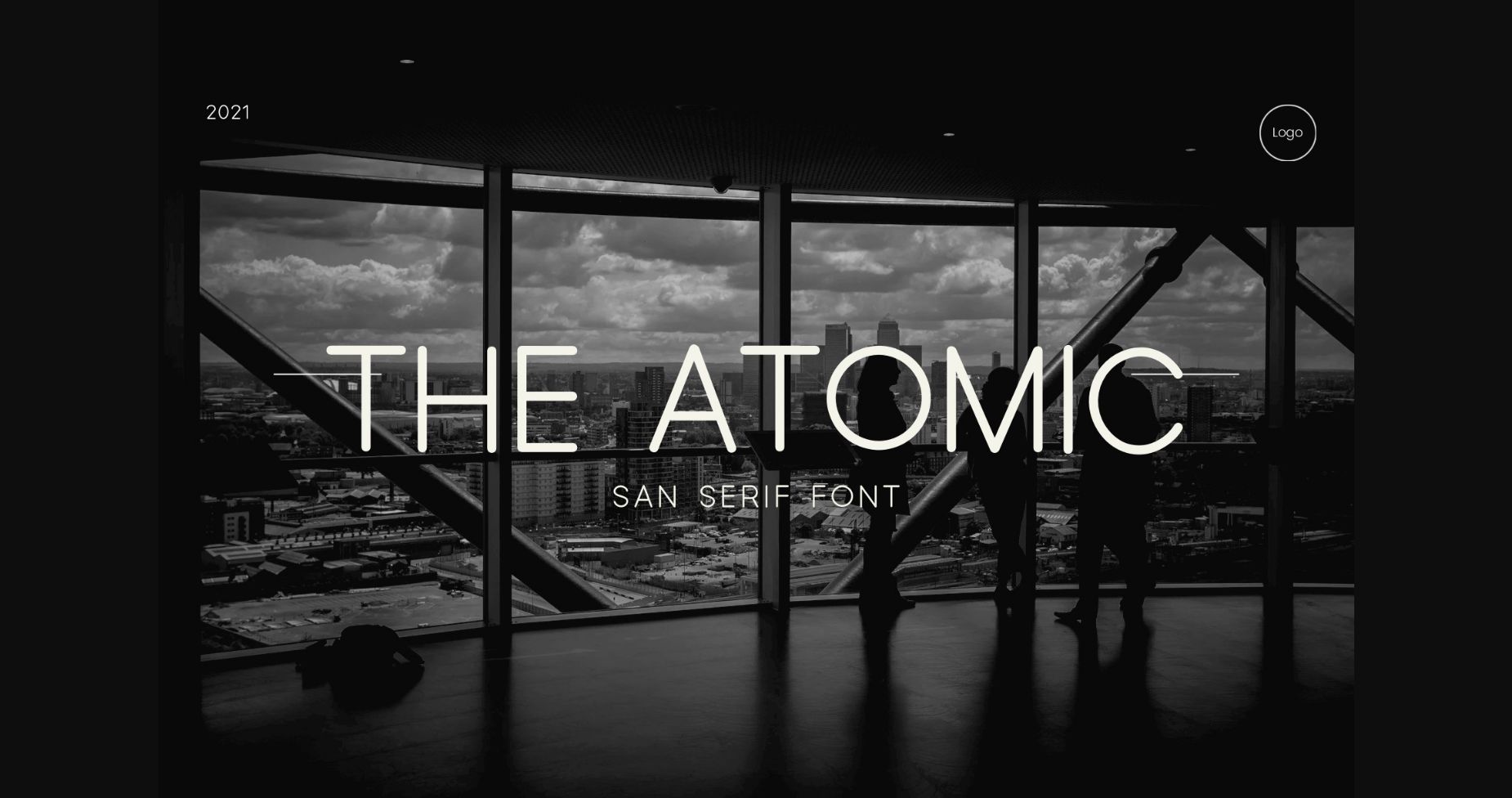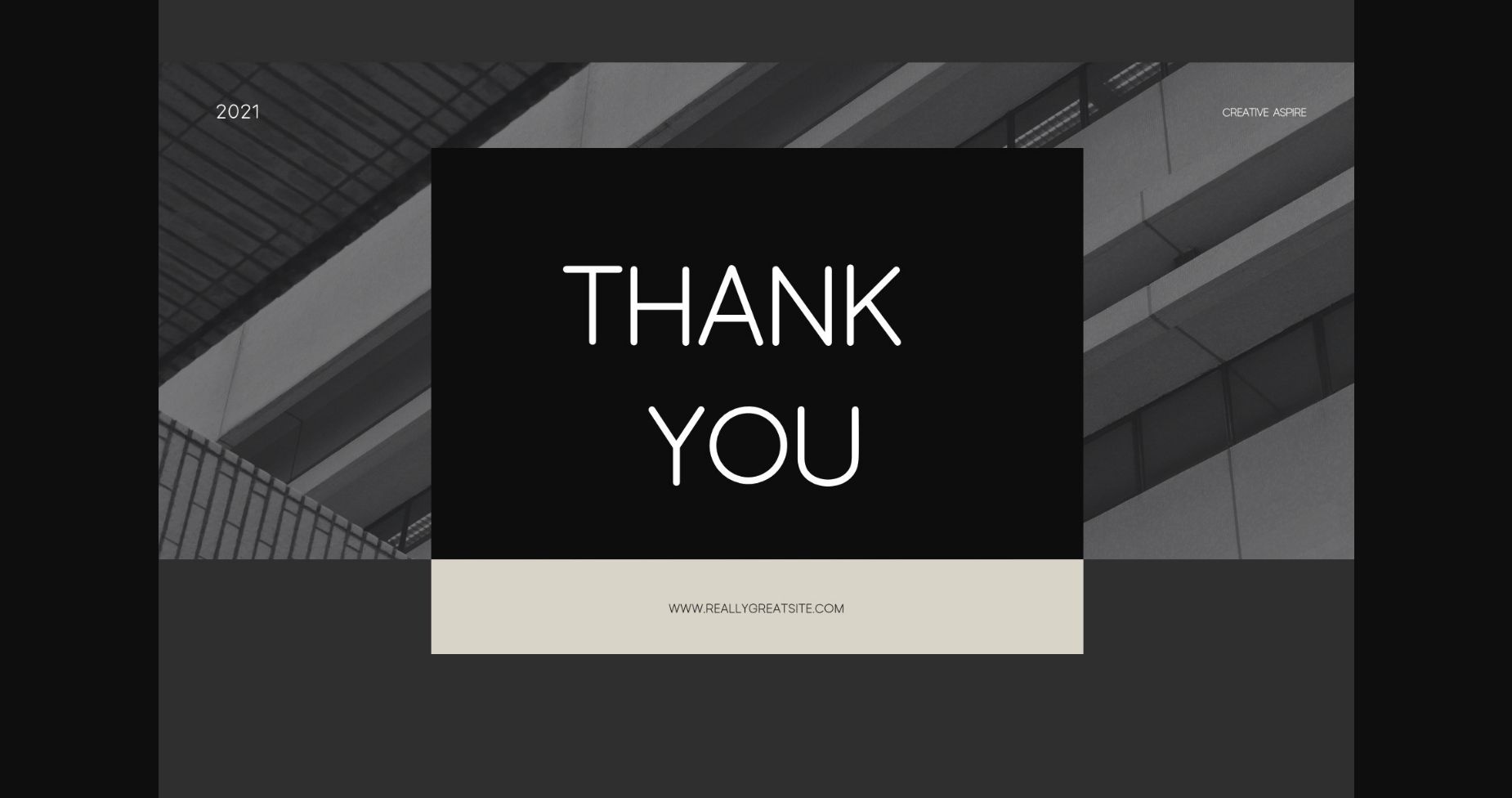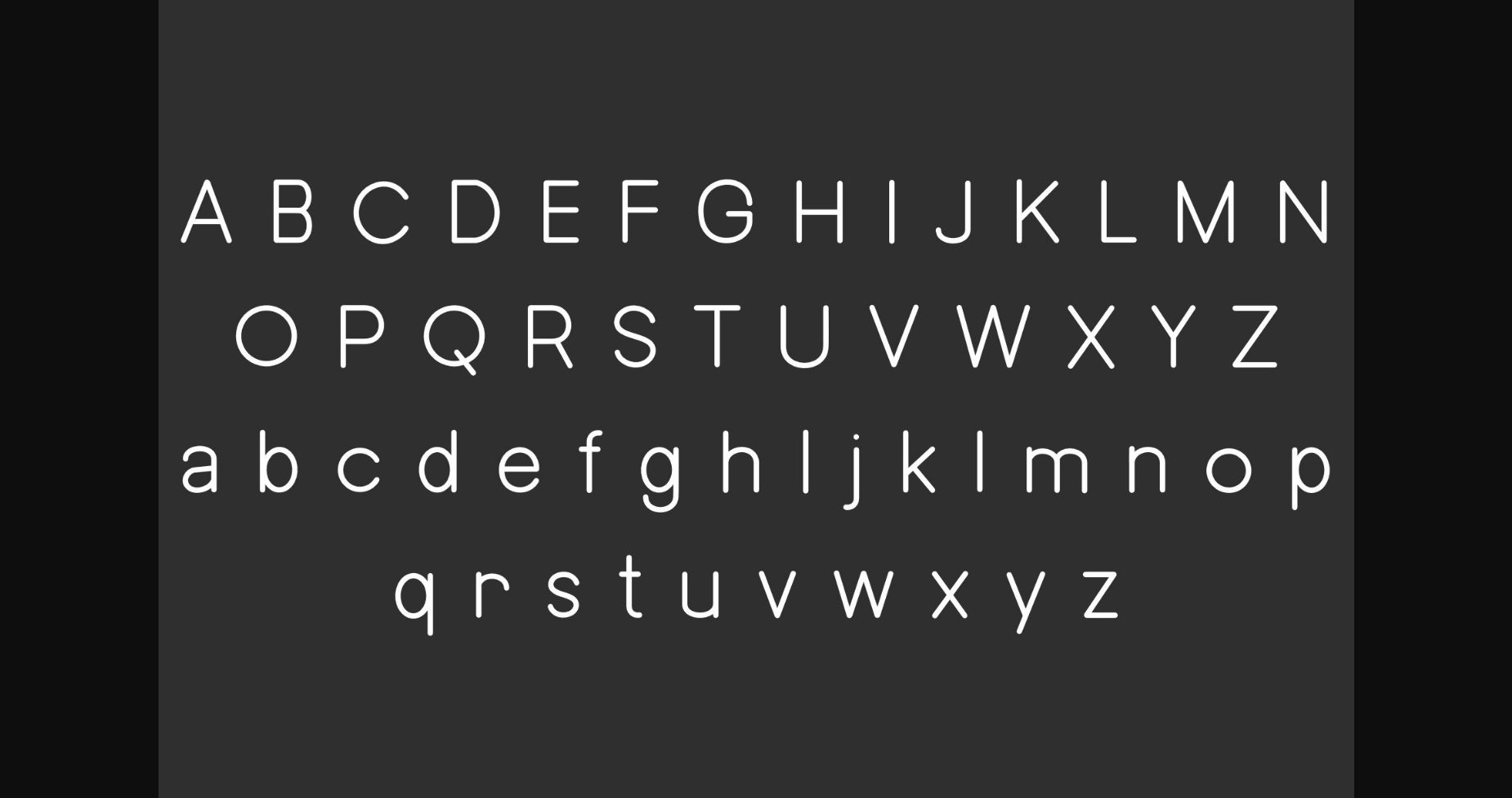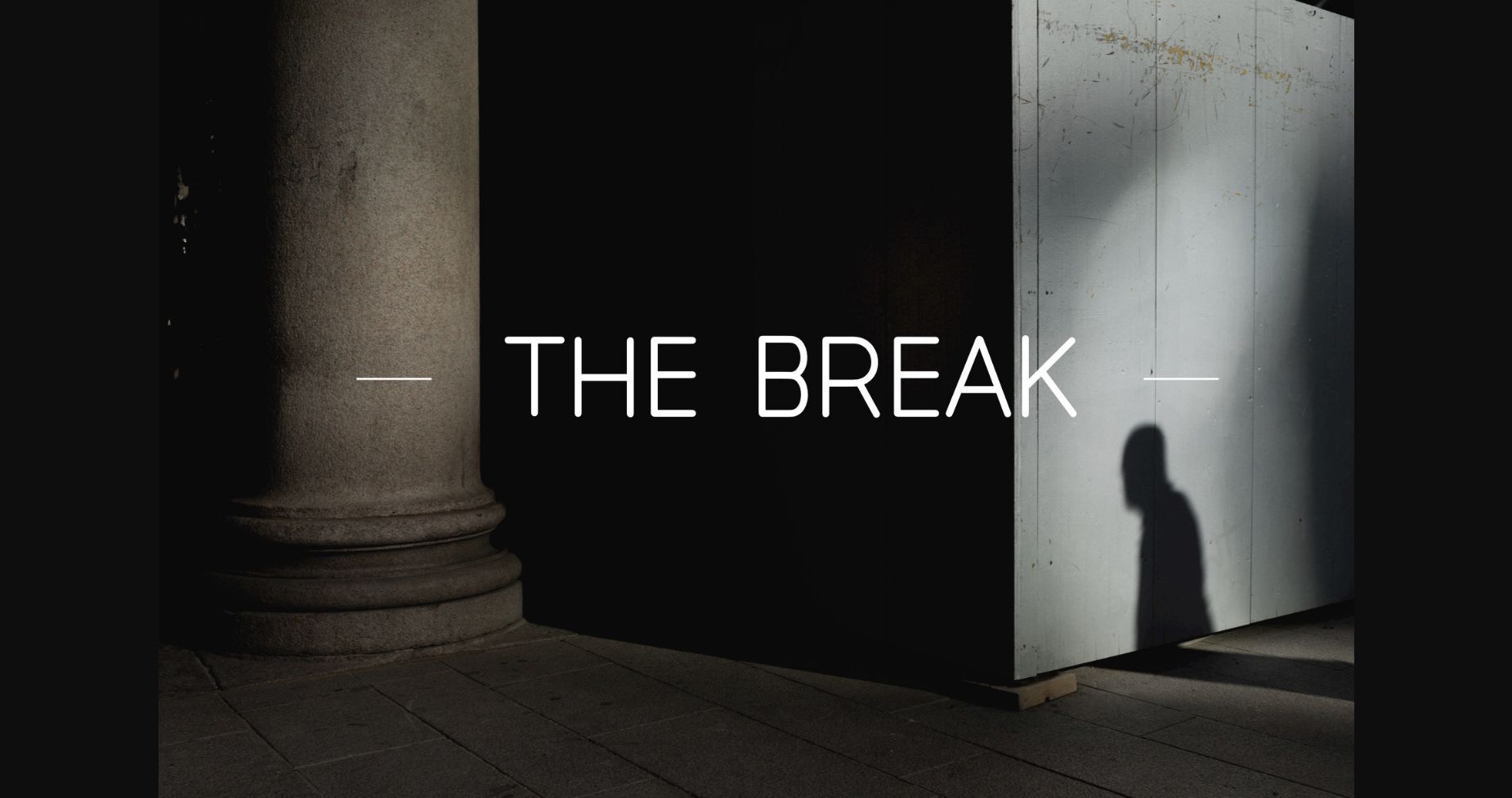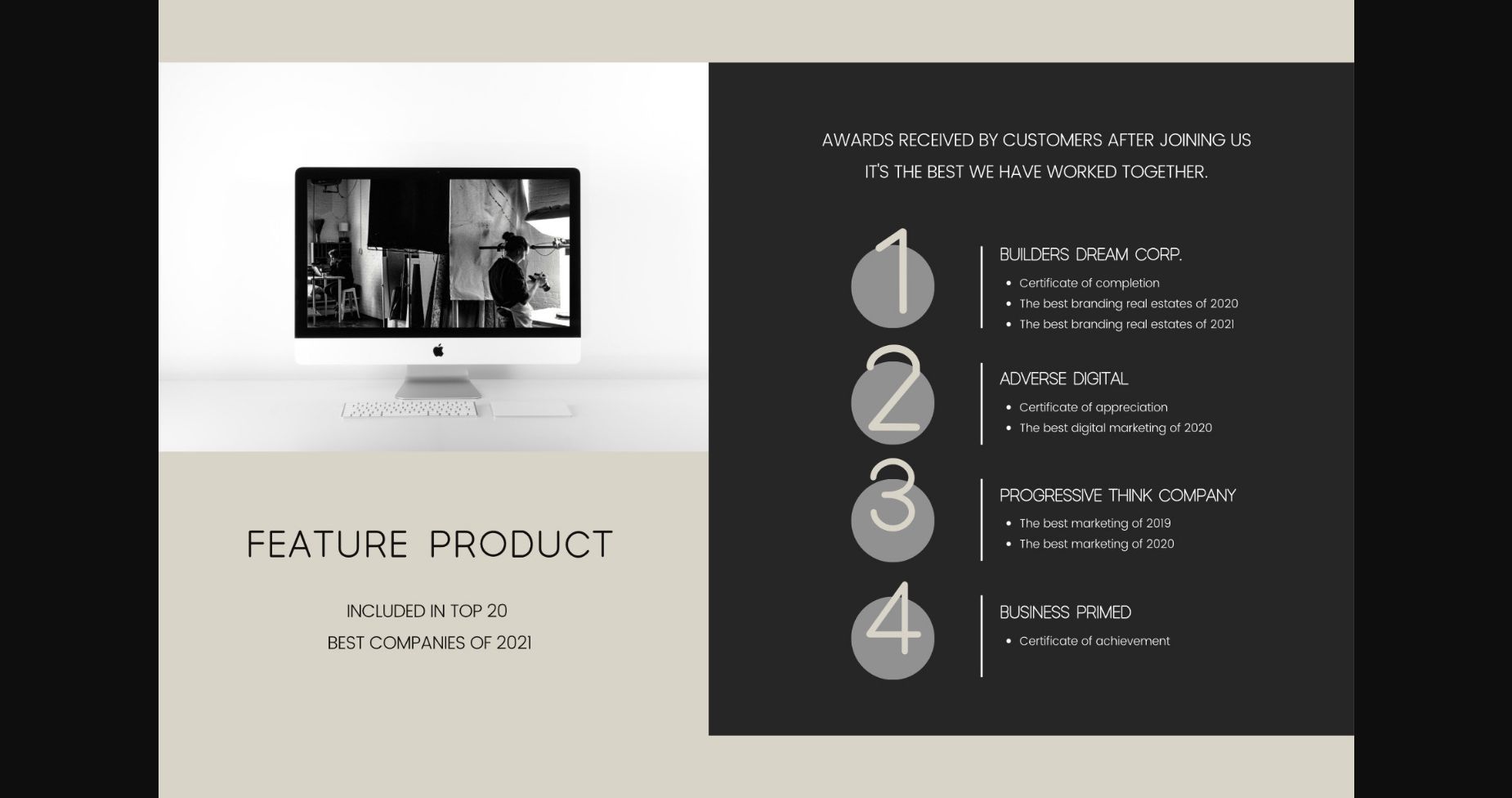
About The Atomic Font
THE ATOMIC is a cute, handwritten font. This playful sans-serif will look so good on your invites, cards, logos, and any other fun projects you are working on.